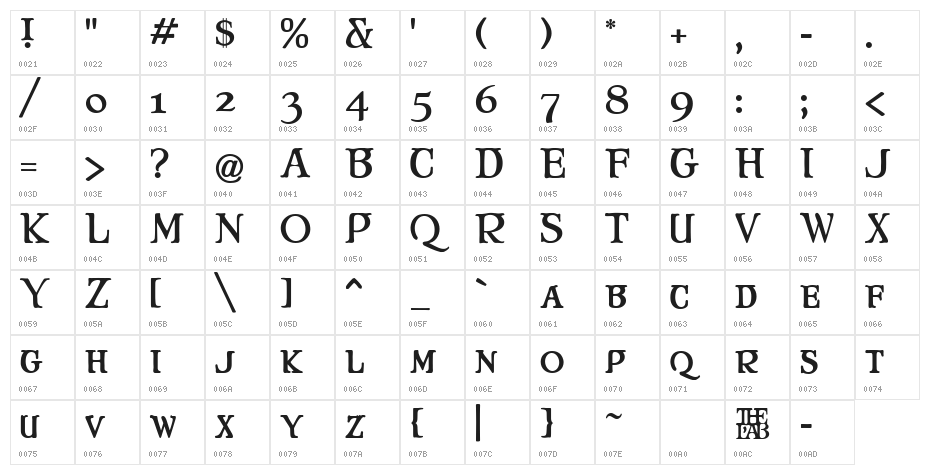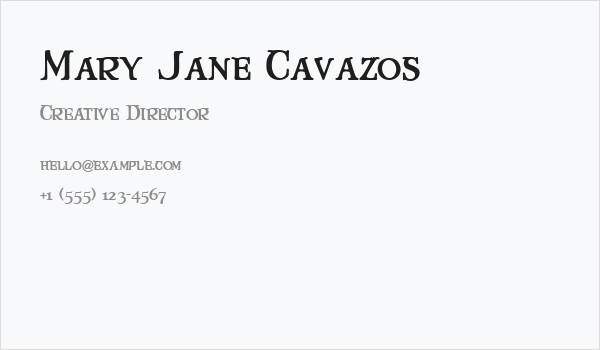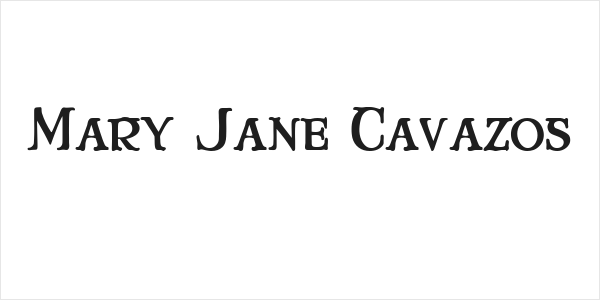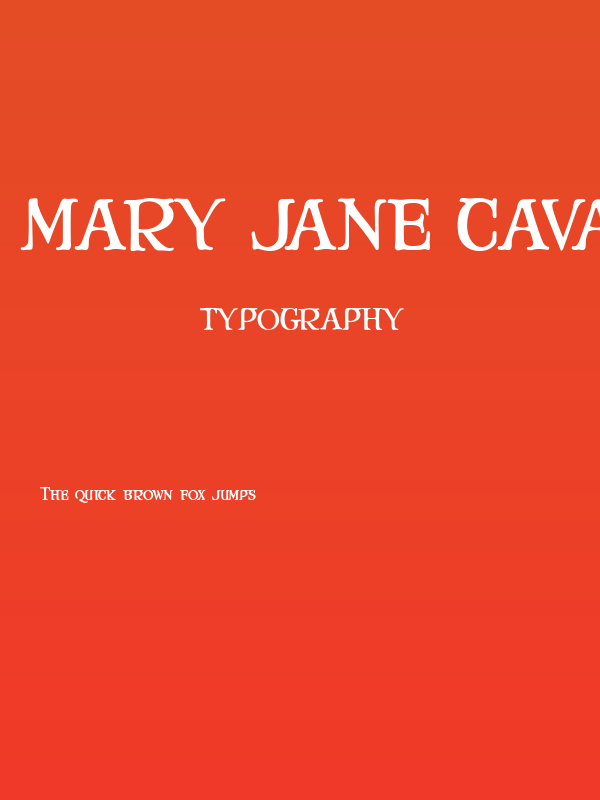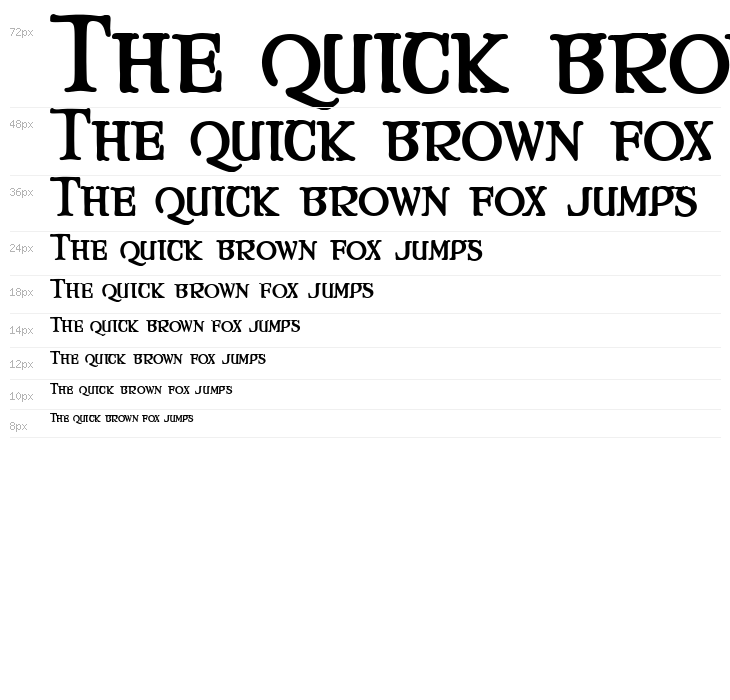
Mary Jane Cavazos Font
Mary Jane Cavazos Description
This font features a bold and dramatic style with a strong presence. The characters are designed with a high contrast between thick and thin strokes, giving it a dynamic and eye-catching appearance. The serifs are pronounced and slightly curved, adding a touch of elegance and sophistication. The overall design is reminiscent of traditional serif fonts but with a modern twist, making it suitable for both classic and contemporary projects. The spacing between characters is tight, which enhances its boldness and makes it ideal for impactful headlines and titles.
| Proposed Projects | Ideal for book covers, posters, branding, and editorial design where a strong and elegant presence is required. |